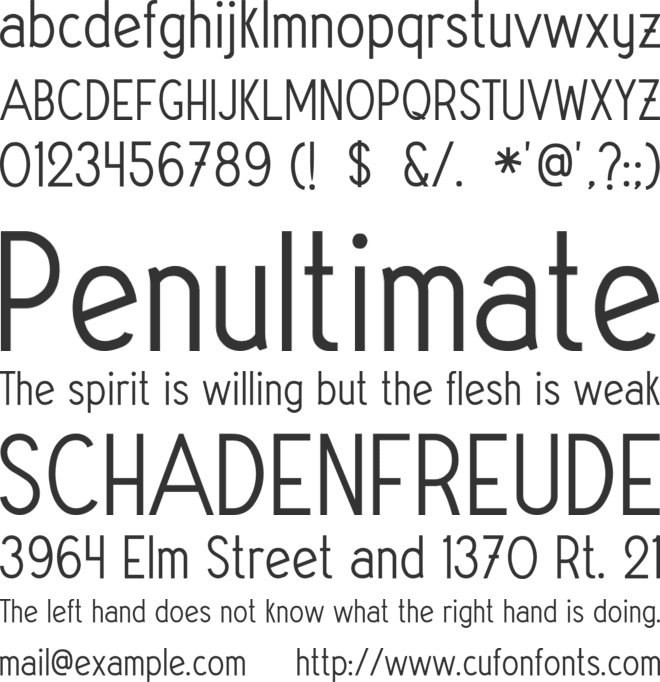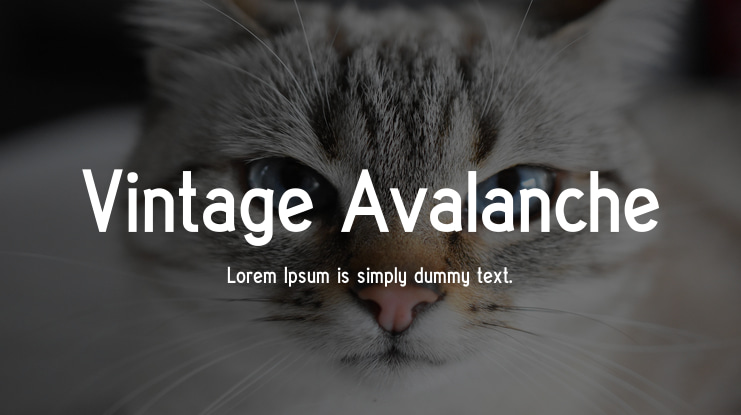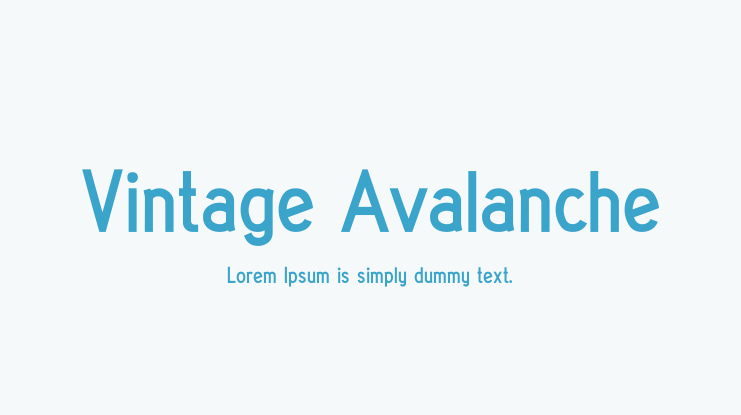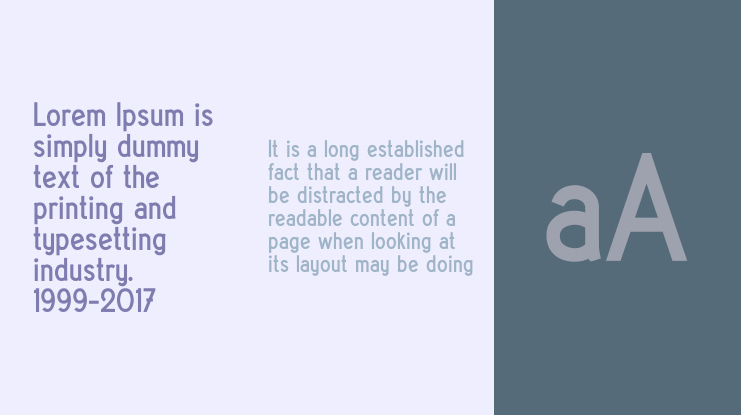
"Vintage Avalanche" is a conspicuous, thin yet highly readable type which works well in all environments, as effective in both small sizes as in large titling signage.
"Vintage Avalanche" is a type somewhat inspired by a handmade sign that appears on the movie '007 On Her Majesty's Secret Service'. For a fully functional license please mail me.
Created by Abraham PlaPi, 2016